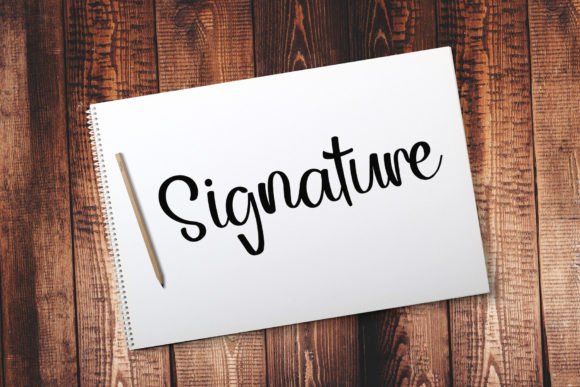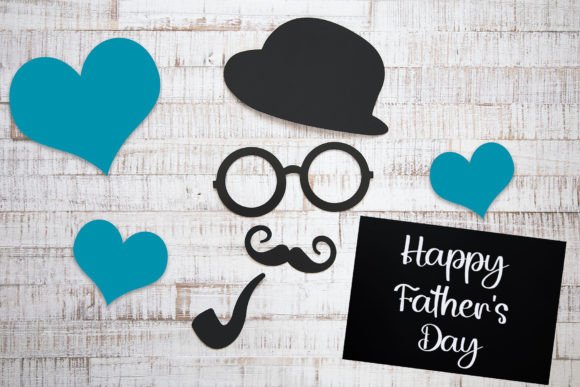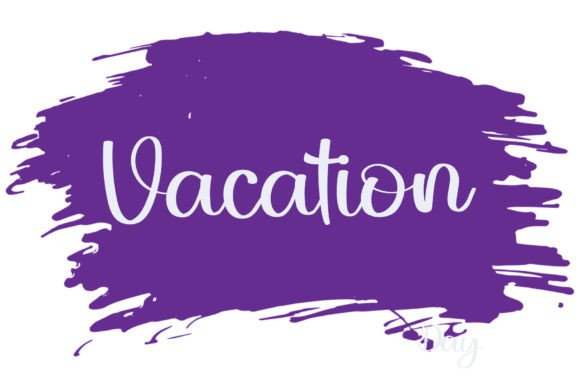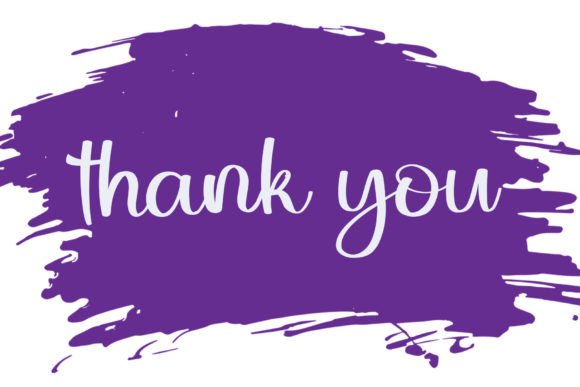
Introducing Anemone Font: The Sweet and Romantic Handwritten Script Font
Are you looking for a font that exudes love, elegance, and sophistication? Look no further than Anemone Font, a beautiful handwritten script font that is sure to capture your heart. With its incredibly versatile style, Anemone Font is perfect for creating stunning wedding invitations, gorgeous stationary art, eye-catching social media posts, and much more.
What Makes Anemone Font So Special?
Anemone Font is a sweet and romantic handwritten script font that is designed to make your designs stand out. Its unique and elegant style is perfect for designers and crafters who want to add a touch of love and sophistication to their projects. Whether you’re creating wedding invitations, social media graphics, or stationary art, Anemone Font is the perfect choice.
Features of Anemone Font
- Sweet and Romantic Style: Anemone Font has a sweet and romantic style that is perfect for creating gorgeous wedding invitations, love letters, and other romantic designs.
- Incredibly Versatile: Anemone Font is incredibly versatile and can be used for a wide range of design projects, from social media graphics to stationary art.
- Handwritten Script: Anemone Font is a handwritten script font that has a personal and intimate feel, making it perfect for designs that require a touch of elegance and sophistication.
- Easily Readable: Despite its elegant and cursive style, Anemone Font is easily readable, making it perfect for designs that require a clear and concise message.
Uses of Anemone Font
Anemone Font is a versatile font that can be used for a wide range of design projects, including:
- Wedding Invitations: Create stunning wedding invitations that will leave a lasting impression on your guests.
- Stationary Art: Add a touch of elegance and sophistication to your stationary art with Anemone Font.
- Social Media Posts: Create eye-catching social media posts that will grab the attention of your followers.
- Love Letters: Write beautiful love letters that will express your feelings in a elegant and romantic way.
- Branding and Packaging: Use Anemone Font to create beautiful branding and packaging designs that will make your products stand out.
Tips for Using Anemone Font
Here are some tips for using Anemone Font:
- Use it with a Simple Background: Anemone Font looks best with a simple background that won’t distract from the beauty of the font.
- Experiment with Colors: Anemone Font looks great in a variety of colors, so don’t be afraid to experiment and find the perfect color for your design.
- Mix it with Other Fonts: Anemone Font can be paired with other fonts to create a unique and interesting design.
- Use it for Headlines and Titles: Anemone Font is perfect for headlines and titles, where its elegant and cursive style can really shine.
Anemone Font is a beautiful handwritten script font that is perfect for designers and crafters who want to add a touch of love and sophistication to their designs. With its sweet and romantic style, incredibly versatile design, and easily readable text, Anemone Font is the perfect choice for a wide range of design projects. So why not fall in love with Anemone Font and use it to create your own gorgeous designs?